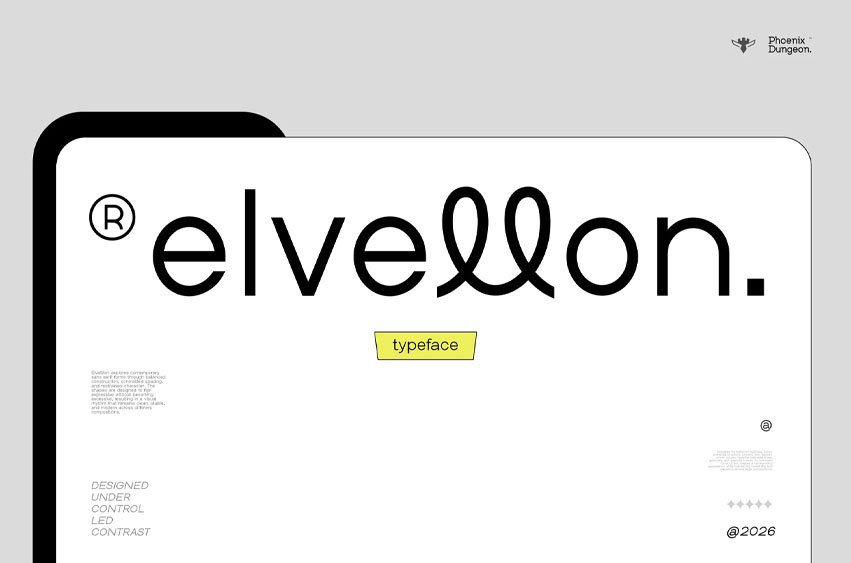
Elvellon Font is a modern artistic sans serif built with disciplined structure and refined visual rhythm. Designed through controlled proportions and balanced geometry, it explores expressive forms without disrupting clarity. The construction remains clean and stable across layouts, creating a contemporary presence that feels subtle, intentional, and quietly distinctive.
Constructed through calm proportions and low-noise geometry, Elvellon approaches modern sans serif design with subtle expression and disciplined form behavior. The result is a typeface that feels structured, refined, and visually effortless.